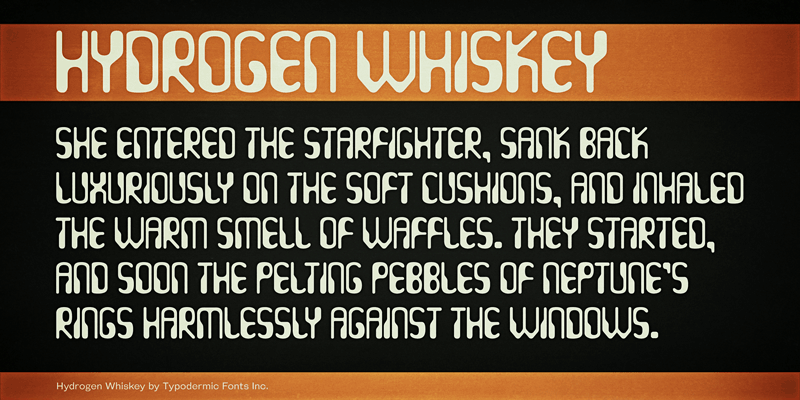
Font name: | Hydrogen Whiskey |
Hydrogen Whiskey is a capsule shaped, MICR inspired retro techno font. This font includes a license that allows free commercial use: sometimes referred to as a desktop license. This allows you to install the font on a computer and use it to create posters, web graphics, game graphics, t-shirts, videos, signs, logos and more. Read the license agreement for details. If you'd like to embed this font in an app, ebook, on the web or anything that's not covered by the desktop license agreement, visit the link below. You'll find distributors who offer different types of licenses or you can contact me for help. http://typodermicfonts.com/hydrogen-whiskey/ |